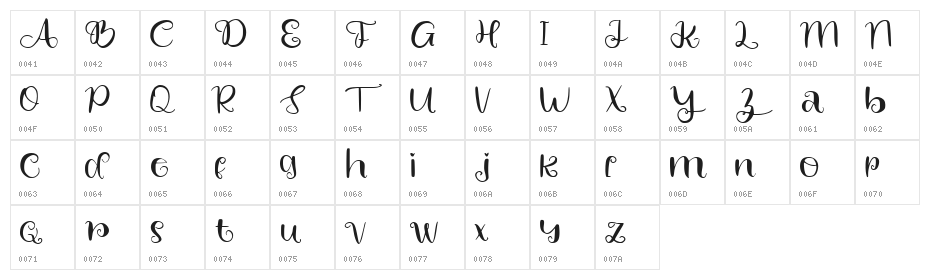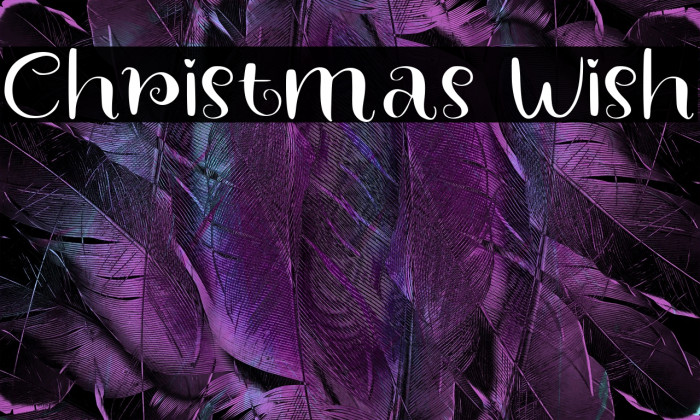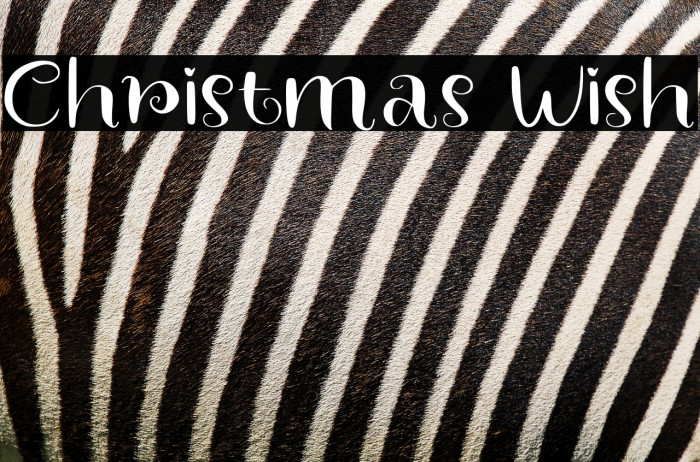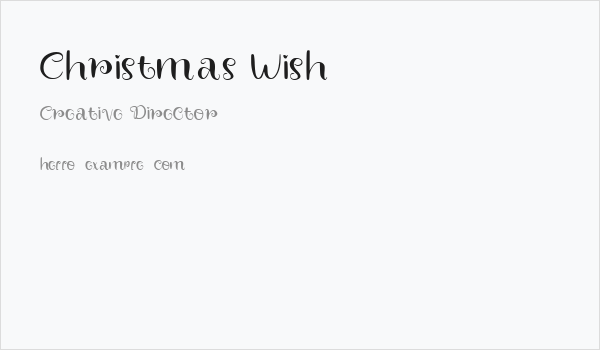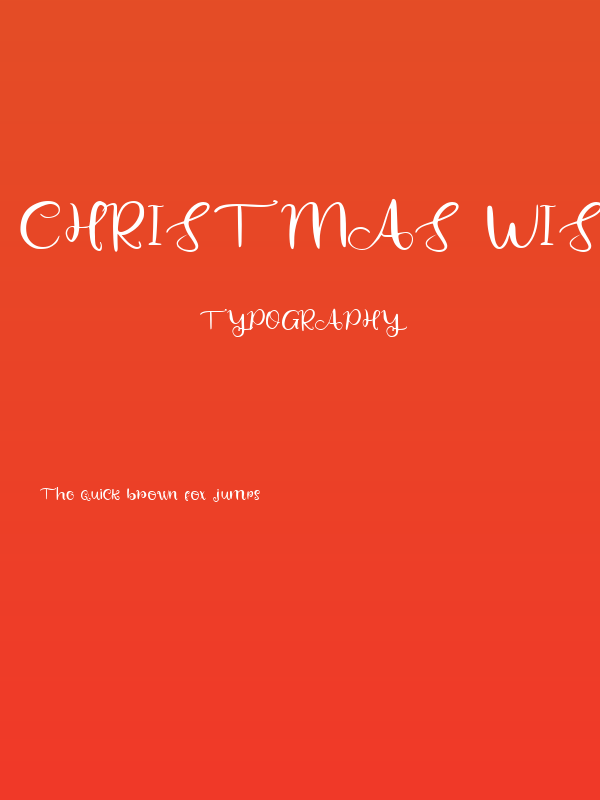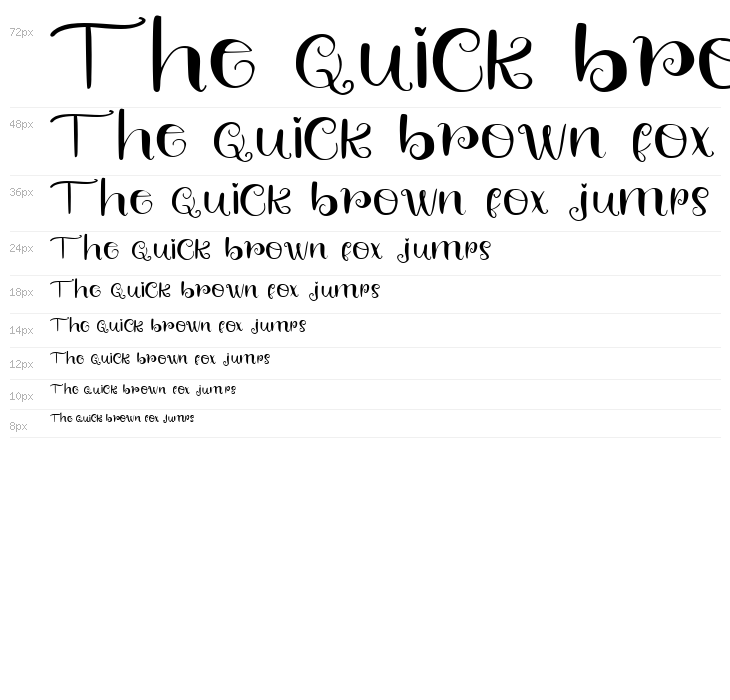
Christmas Wish Font
Christmas Wish Description
This font features an elegant and whimsical script style, characterized by its flowing curves and playful loops. The uppercase letters are adorned with decorative swirls, adding a festive and joyful touch. The lowercase letters maintain a consistent style with a slightly more restrained flourish, ensuring readability while retaining a sense of charm. The numbers and special characters are designed to complement the overall aesthetic, making them suitable for a variety of creative applications. The font's unique style captures a sense of celebration and warmth, perfect for holiday-themed projects.
| Proposed Projects | Ideal for holiday cards, festive invitations, seasonal branding, and decorative signage. |